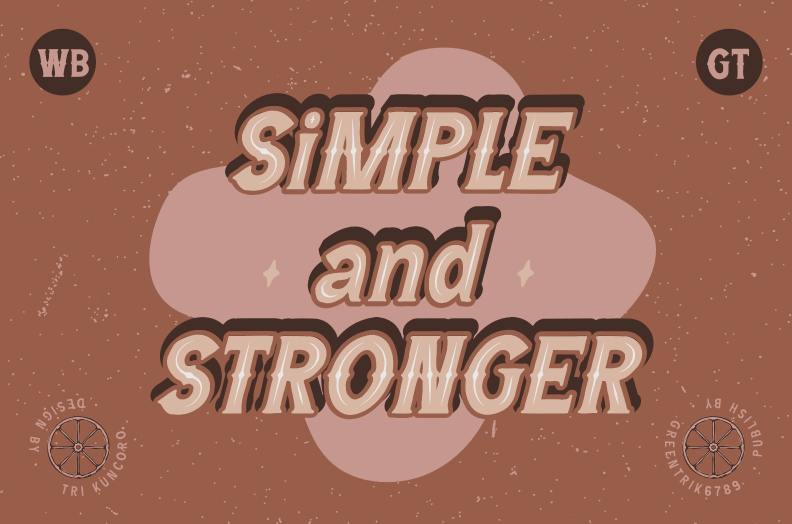
Wild Bandit is a cool, bold and vintage styled display font. It works incredibly well on posters, labels, branding and pretty much anything that requires a trendy, assertive touch. Wild Bandit comes with 10 styles namely regular sans, serif, serif hole, serif outline, serif extrude and italic style. Boost your creativity with the bonus Illustrations and Ai pattern brushes in your designs. FREE PERSONAL USE! Need Commercial use ? Get Here: https://www.creativefabrica.com/product/wild-bandit/ref/237607/ |